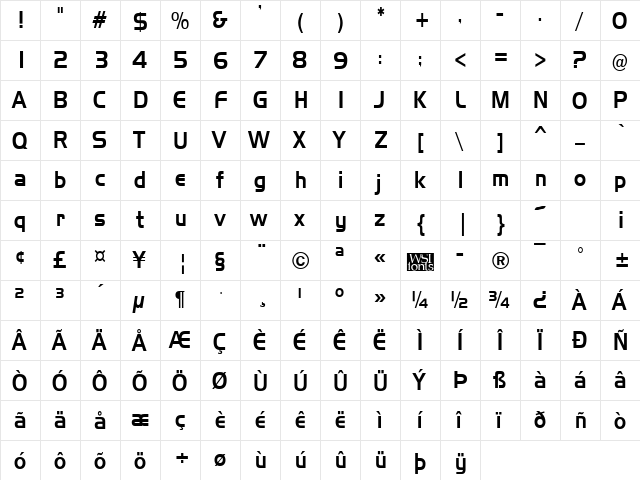
Slickerer Regular
Design Context for Slickerer Typeface
Slickerer takes a measured approach to typography — its balanced proportions and neutral character make it a reliable workhorse for both digital and print work.